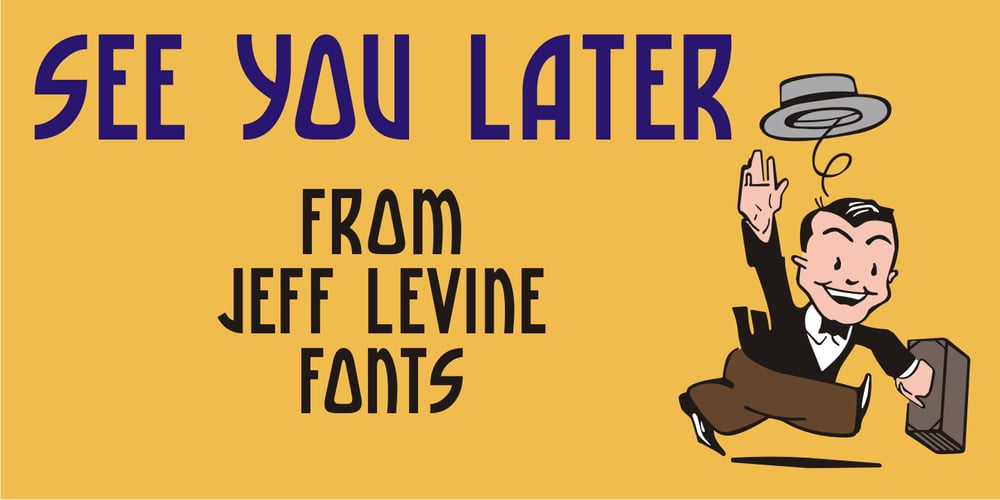
See You Later JNL Font Family was designed by Jeff Levine and published by Jeff Levine. See You Later JNL contains 1 styles and family package options. The sheet music cover of Lew Brown and Albert Von Tilzer’s 1917 wartime song “Au Revoir, But Not Goodbye (Soldier Boy)” had its title hand-lettered in a condensed sans serif design with the influence of Art Nouveau styling. This has now been re-drawn digitally as See You Later JNL.